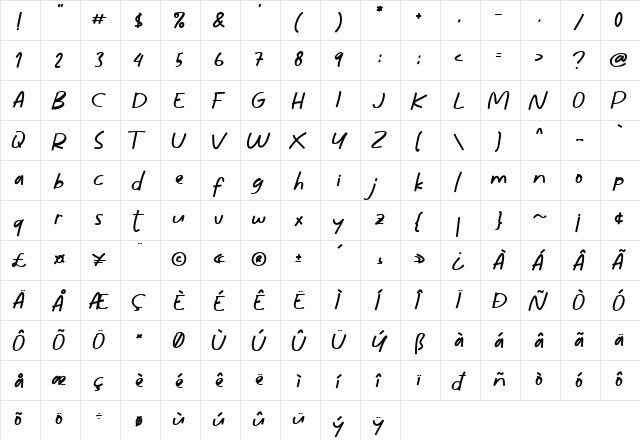
Mini Story Bold
Design Context for Mini Story Typeface
Mini Story is a composed and adaptable typeface that performs quietly and consistently across a wide range of design contexts. The heavy weight commands attention and anchors typographic hierarchies.